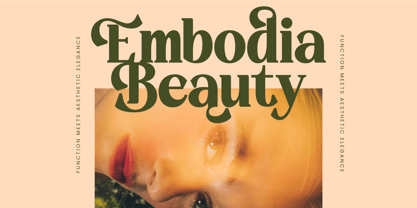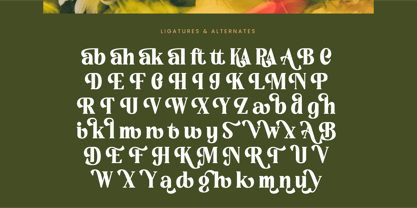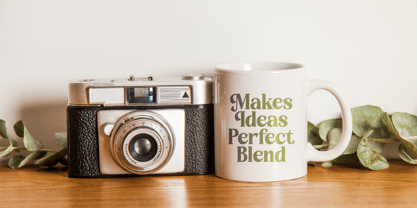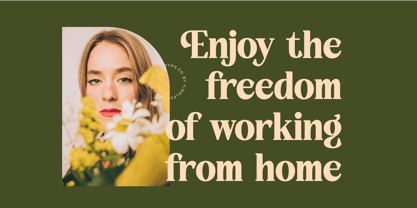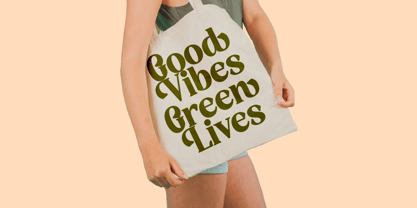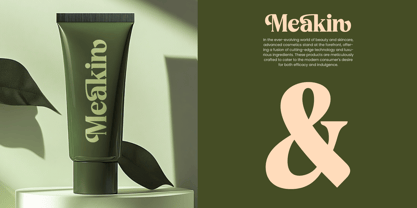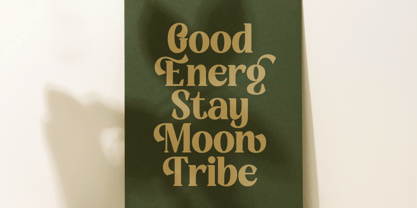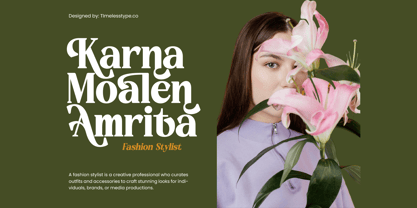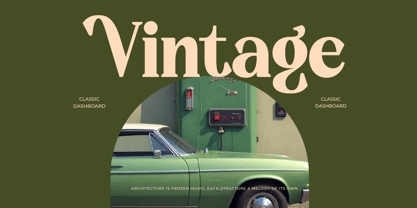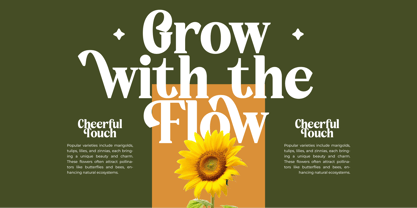
Rusty Drake
by Timelesstype Studio
The Rusty Drake Font Family was designed by Heru Utama Putra and published by Timelesstype Studio. Rusty Drake contains 2 styles and family package options.
Rusty Drake - Bold Serif Display , from Timelesstype, Suitable for any projects such as: logos, branding projects, homeware designs, product packaging, mugs, quotes, posters, shopping bags, t-shirts, book covers, name card, invitation cards, greeting cards, label, photography, watermark, special events, and all your other luxury and beautiful projects that need a Luxury Serif taste.